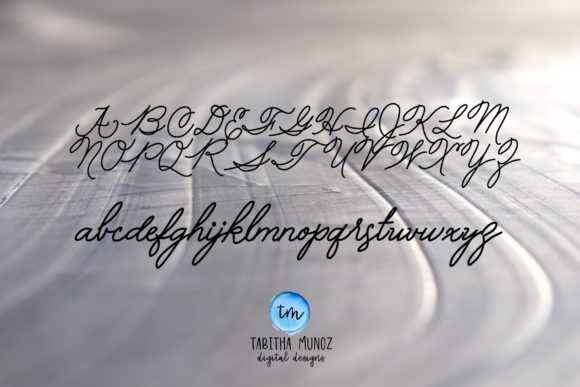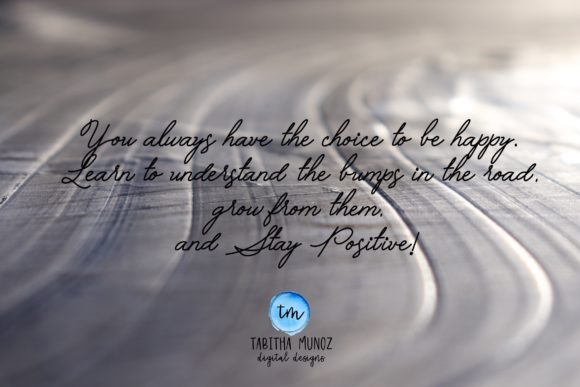
HomeScript FontsGrandma Suzy Font Script Fonts Grandma Suzy Font FacebookXPinterestWhatsApp Grandma Suzy Font Poster 2 Grandma Suzy Font Poster 3 About Grandma Suzy Font Grandma Suzy is a vintage script font that just exudes comfort. Fall in love with its classic look & feel! DOWNLOAD NOW People also explored Glandian Font Rave Queen Dreaming Paris Font Bellatine Font Dreaming Font Monolin Font Gullady Font Last Dance Redux Font PN Boing Font 306 0 TagsGrandma Suzy Font Previous articleCarosello FontNext articleInestasia Font LEAVE A REPLY Cancel reply Comment: Please enter your comment! Name:* Please enter your name here Email:* You have entered an incorrect email address! Please enter your email address here Website: Save my name, email, and website in this browser for the next time I comment. Personal Use Free Twisty Girlz Personal Use Free Read more about this font Bally Girl Personal Use Free Read more about this font Adelia Font Personal Use Free Read more about this font Unispace Personal Use Free Read more about this font BLOG Transform Your Website: Elevate Your Typography with 7 Best Web Font Generators Are you ready to transform your website's typography from ordinary to extraordinary? Great! Today, we're diving into the world of web font generators, which... Top 10 Handwritten Fonts That Elevate Your Designs Using Fonts in Digital Marketing: Tips to Strengthen Your Brand Identity Free vs Paid Fonts: Why Investing in Premium Fonts Is Worth It